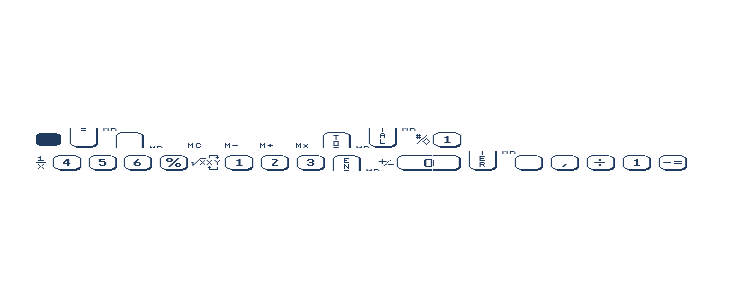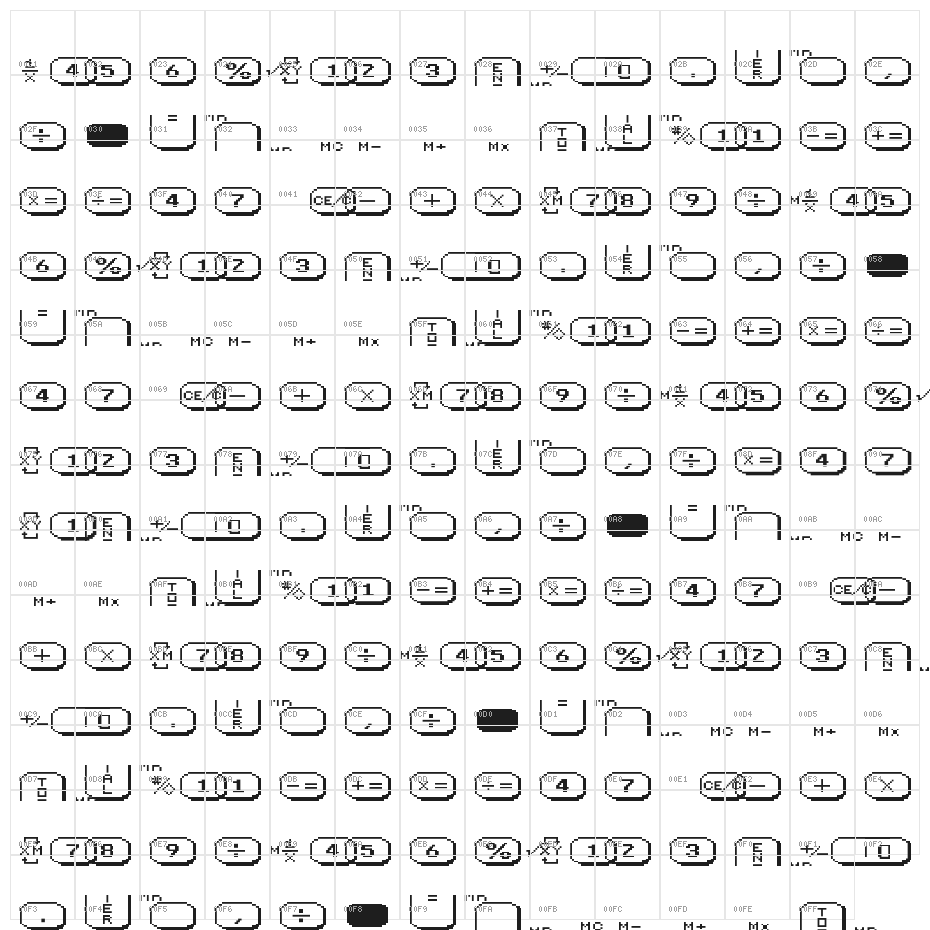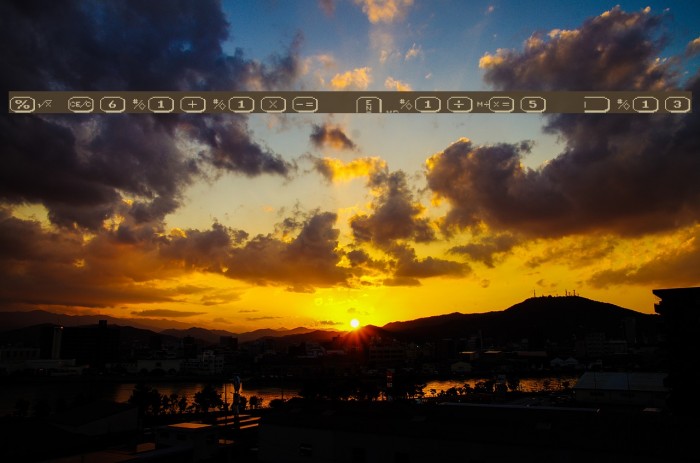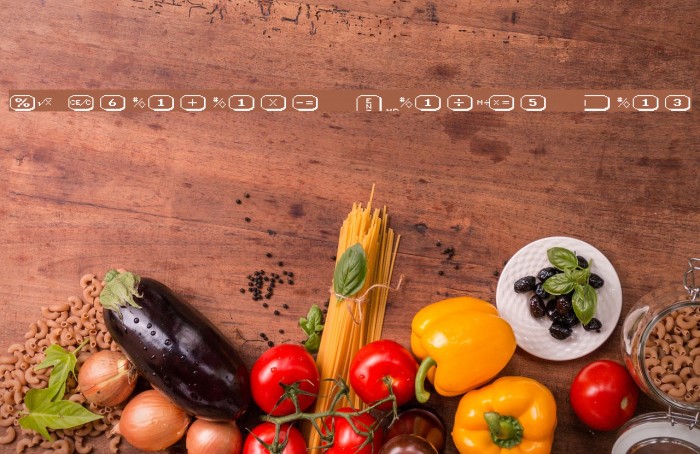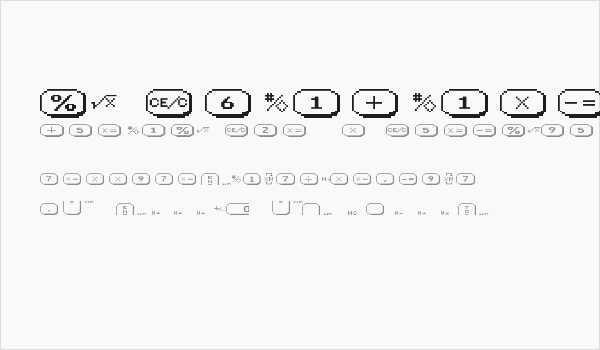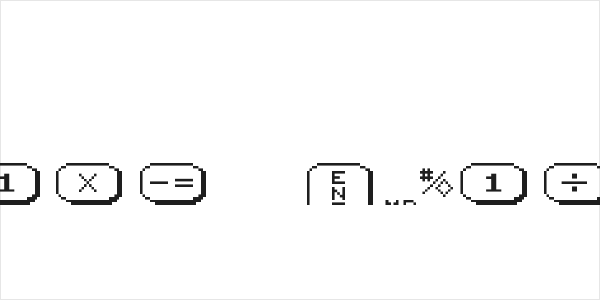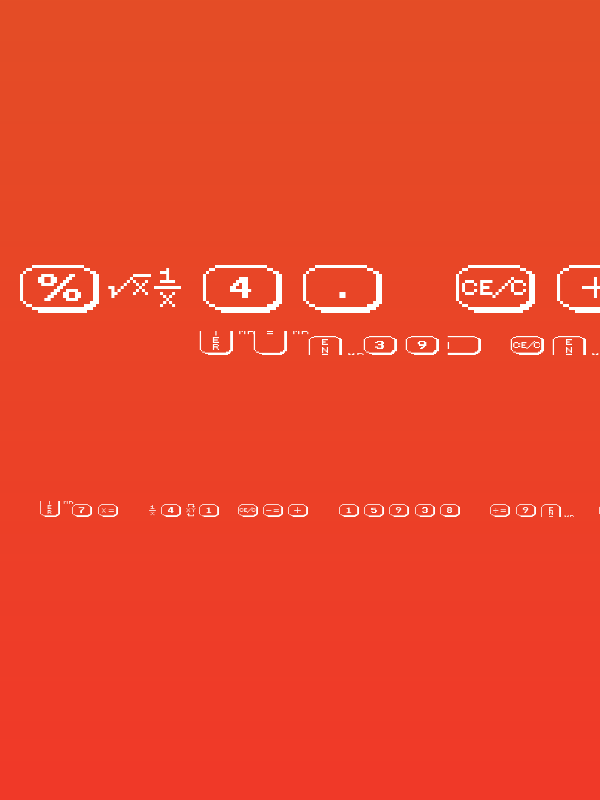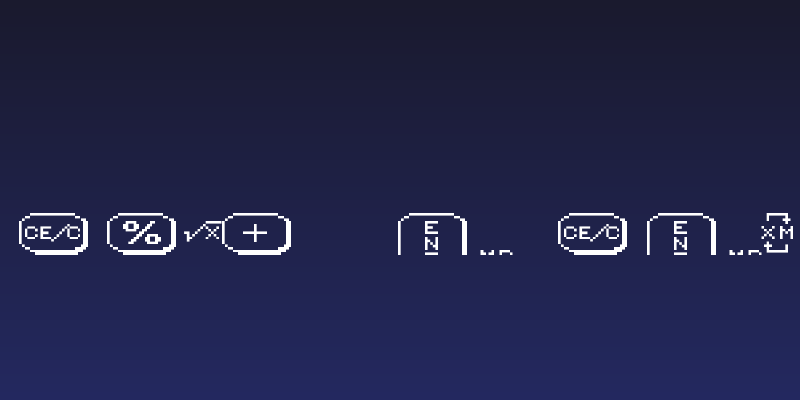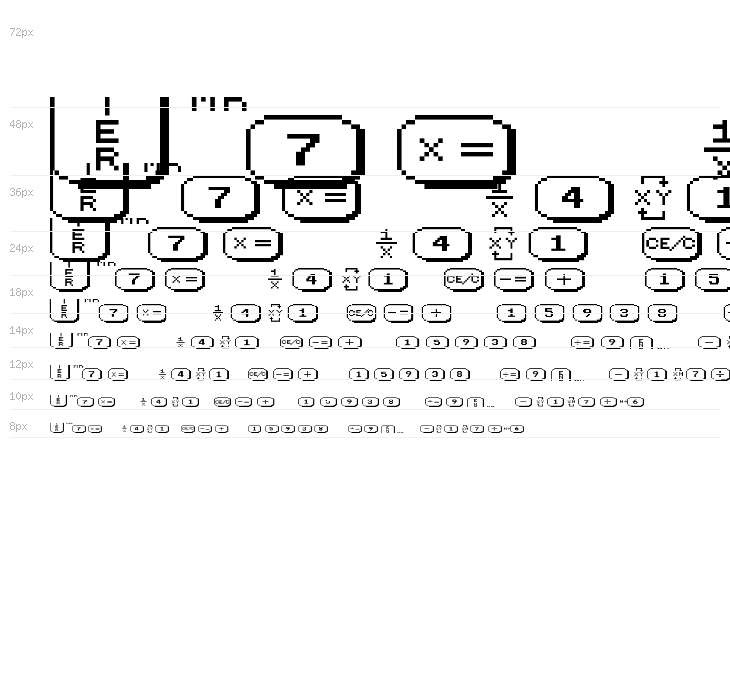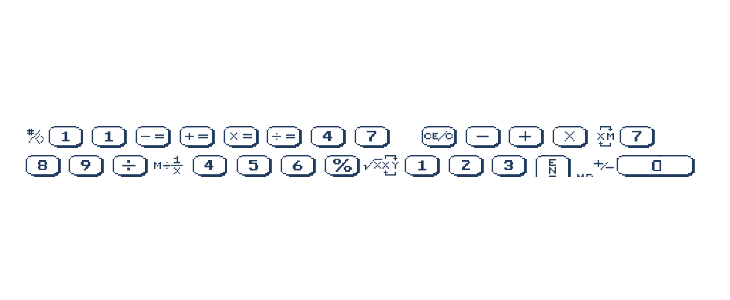
LisaCalc Paper Raw Font
LisaCalc Paper Raw Description
This font is designed to mimic the appearance of characters on a calculator display, featuring a segmented, digital style. Each character is enclosed in a rounded rectangle, reminiscent of the buttons on a calculator. The font includes a variety of mathematical symbols and numbers, making it ideal for applications that require a technical or computational aesthetic. The characters are evenly spaced, providing a clean and organized look. The style is distinctly modern and functional, with a focus on clarity and readability. The font's unique design makes it suitable for projects that aim to convey a sense of precision and technology.
| Use Case | Logos, Digital interfaces, Educational materials |
| Proposed Projects | Ideal for tech-themed designs, educational materials, digital interfaces, and retro-style projects. |